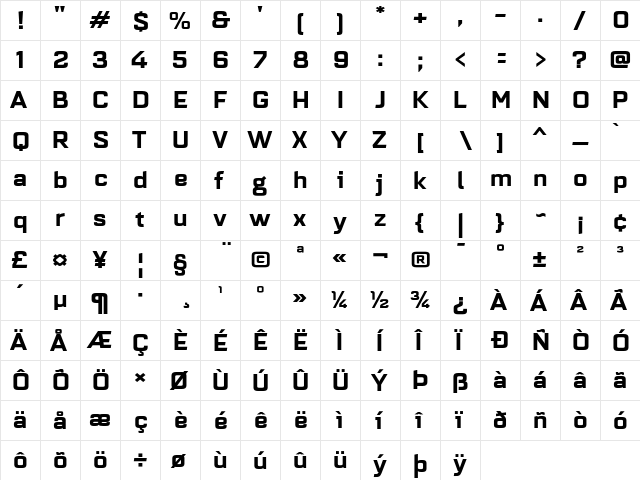
Quarca Ext Bold
Design Context for Quarca Typeface
Quarca takes a measured approach to typography — its balanced proportions and neutral character make it a reliable workhorse for both digital and print work. Its bold stroke weight gives it real presence on the page.